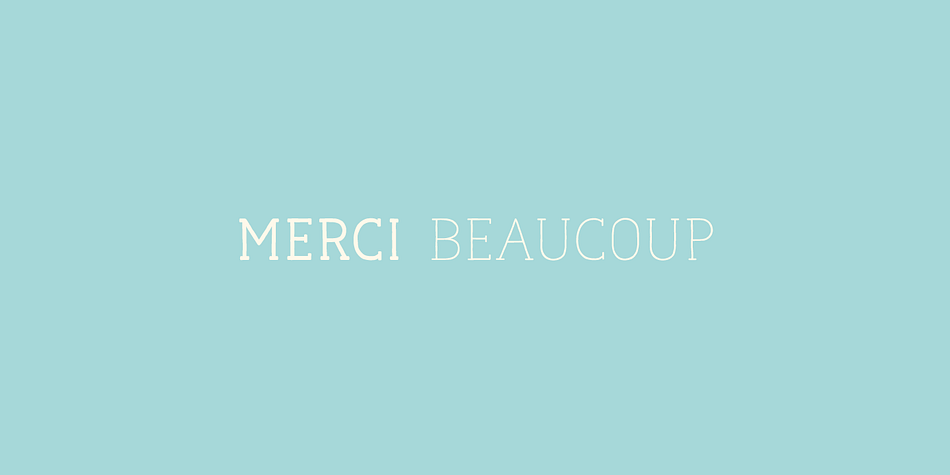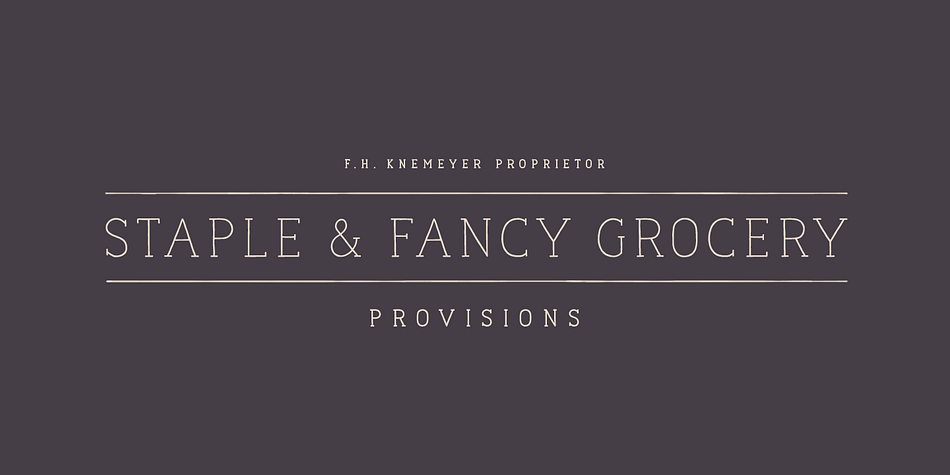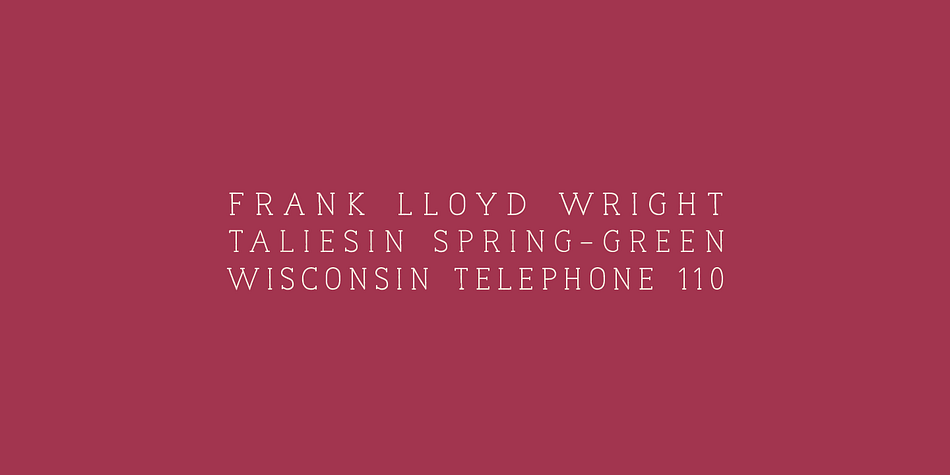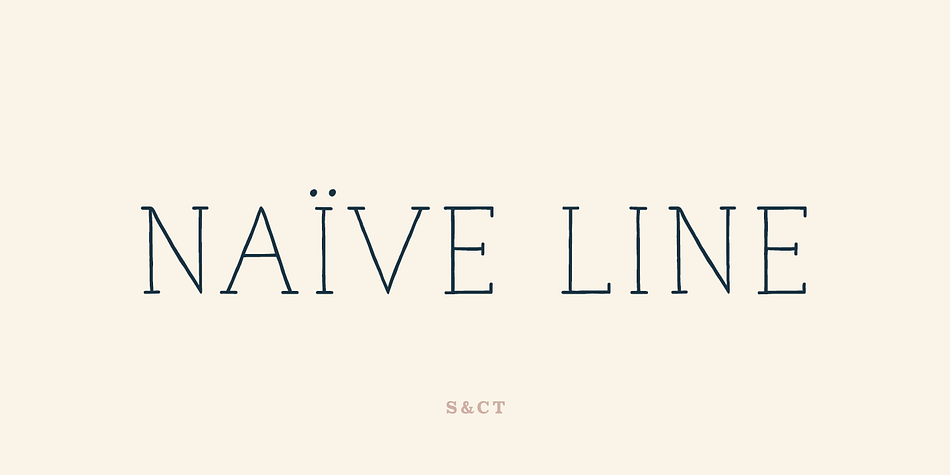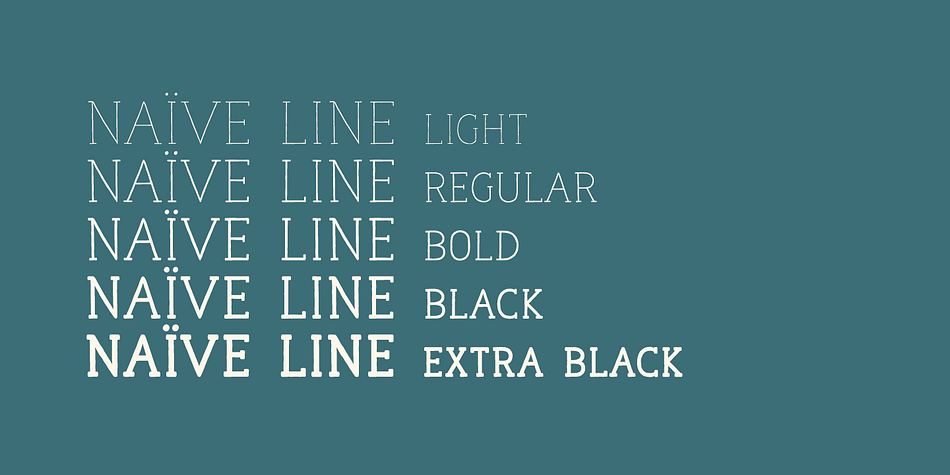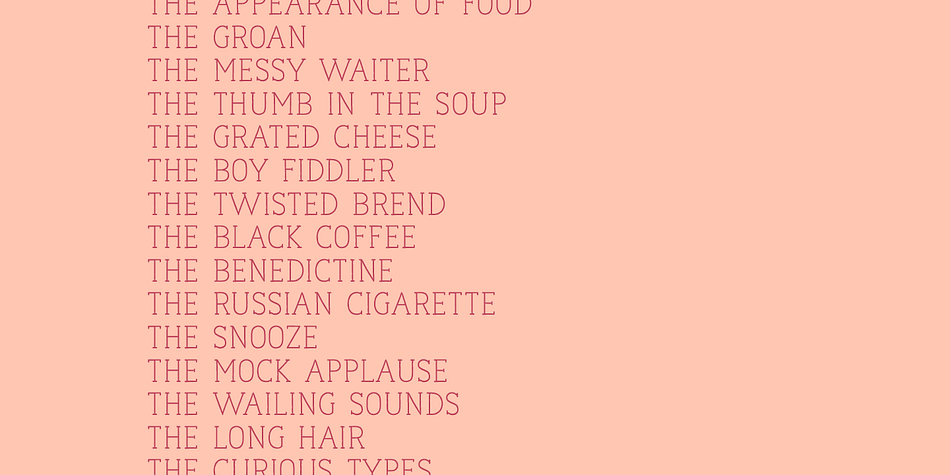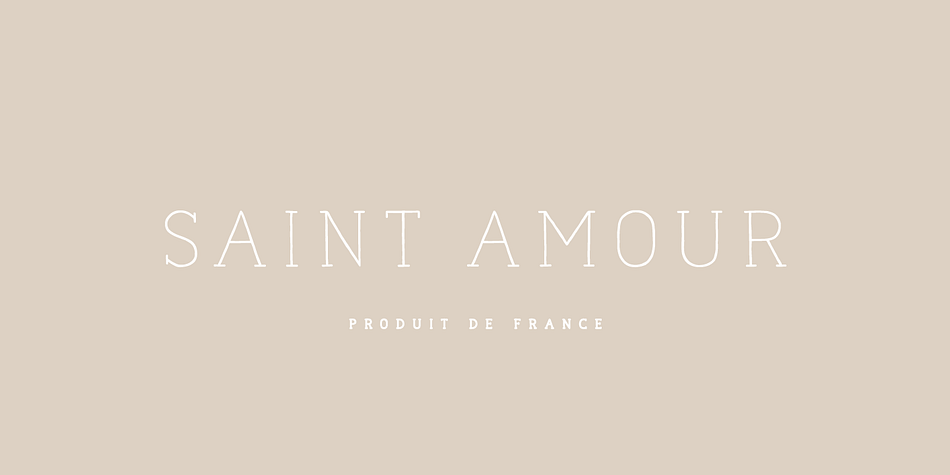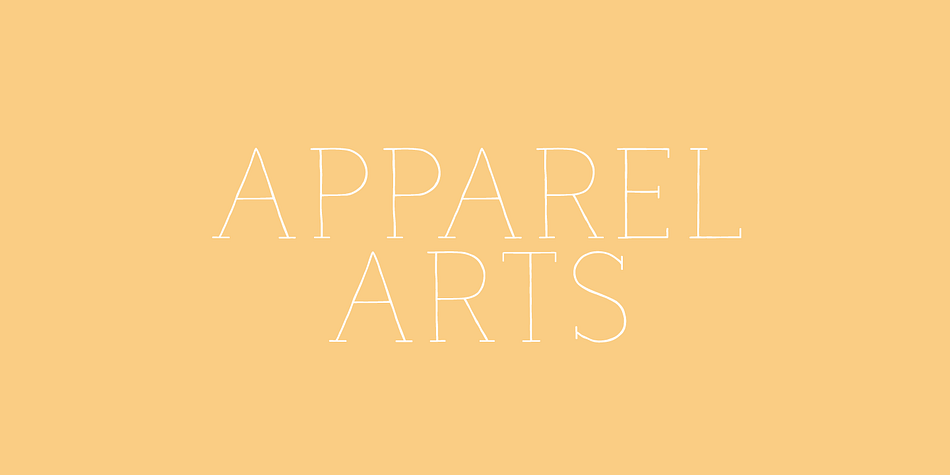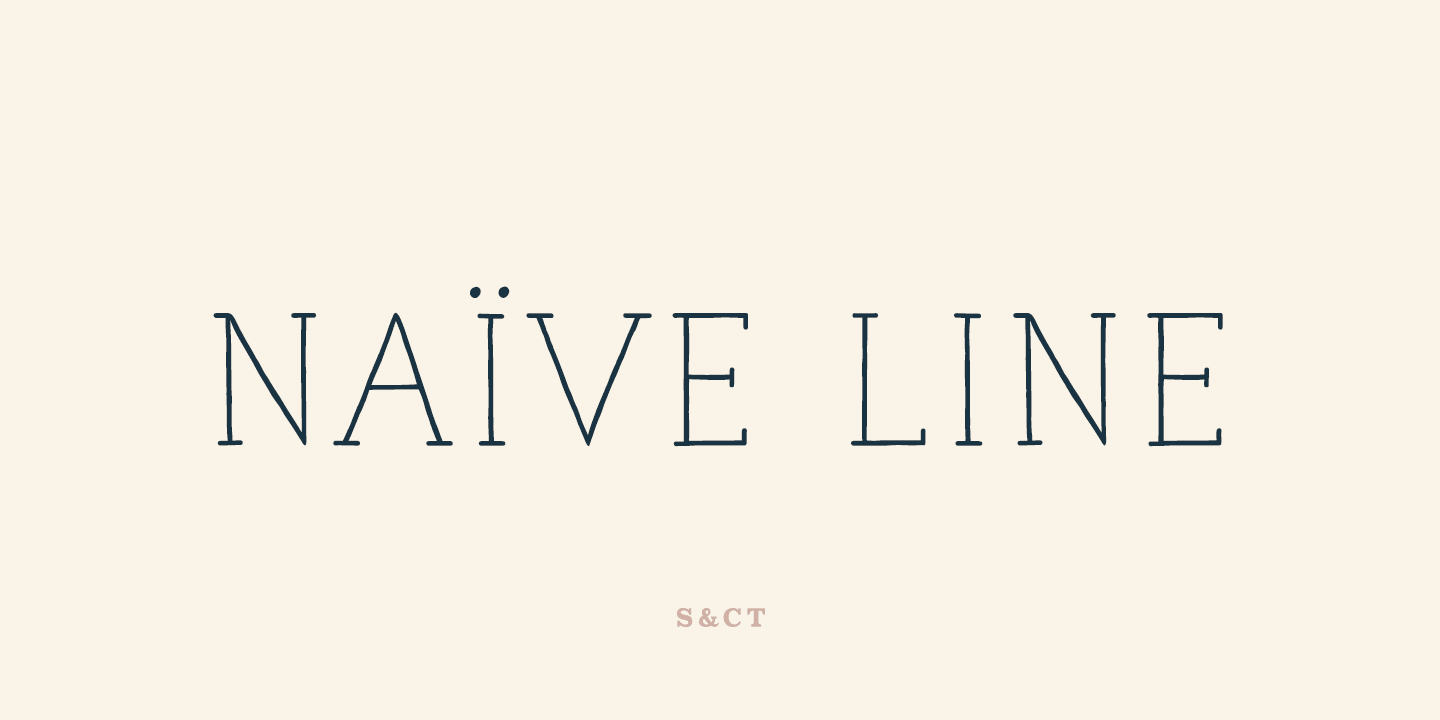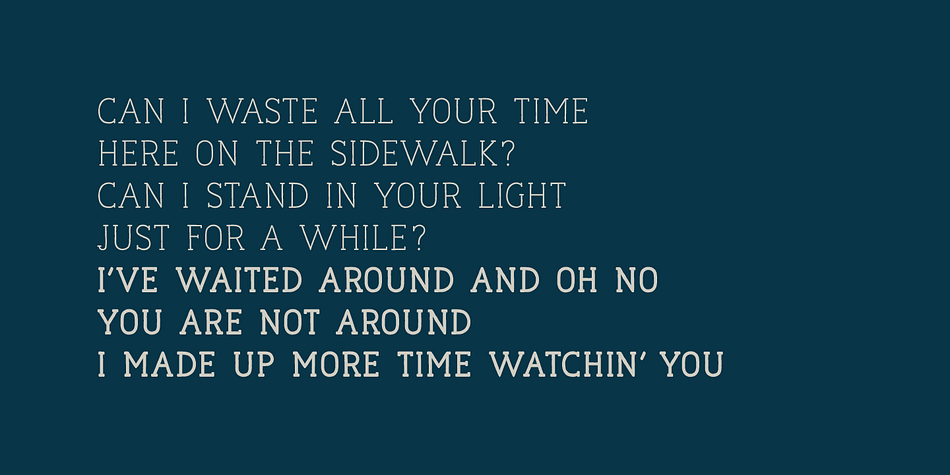
Designed by Fanny Coulez and Julien Saurin, Naive Line is a hand display slab font family. This typeface has five styles and was published by S&C Type.
Naïve Line is an unusual handwritten serif font designed by Fanny Coulez and Julien Saurin in Paris. Our goal was to draw a font with finely irregular lines that give a human and whimsical feeling.
We designed five weights, finely balanced, to assure a good readability whatever the size.
This font is part of our Naïve superfamily that contains lot of variations: Inline, Serif, Sans Serif, and a special Art Deco one. Just click on our foundry name to see them all!